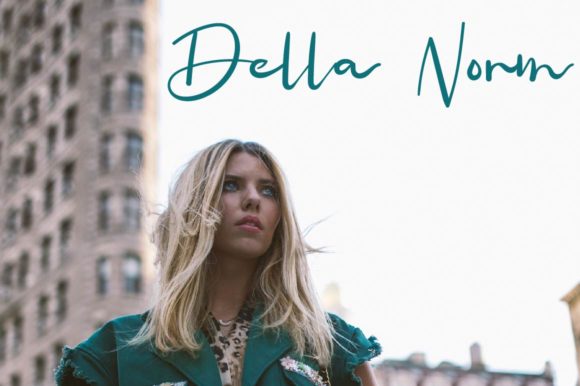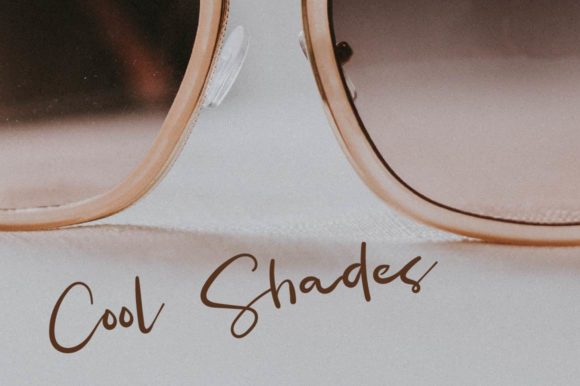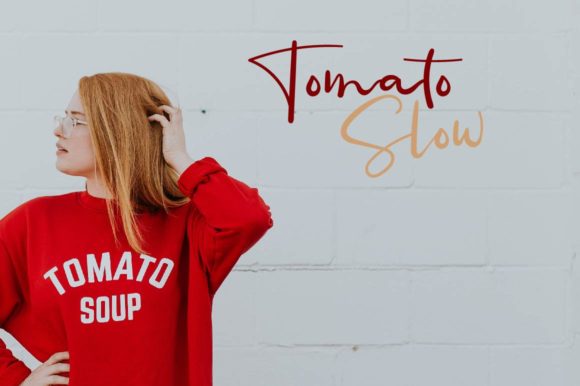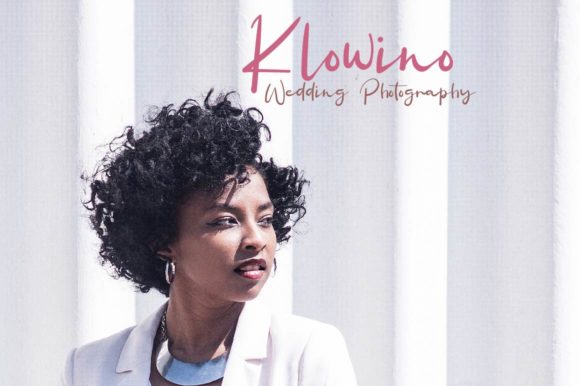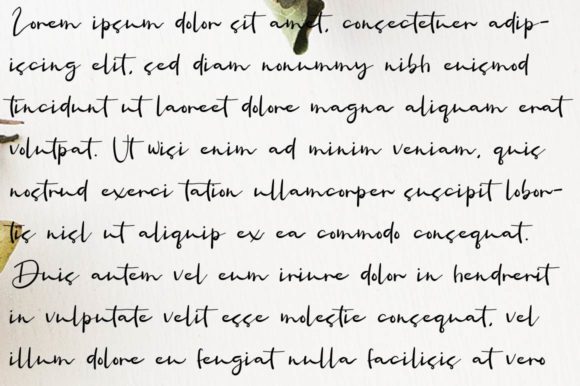
So Lomin Font
So Lomin is a fun and authentic handwritten font with a bold charm. Fall in love with its light elements, and turn any design project into a stand out.